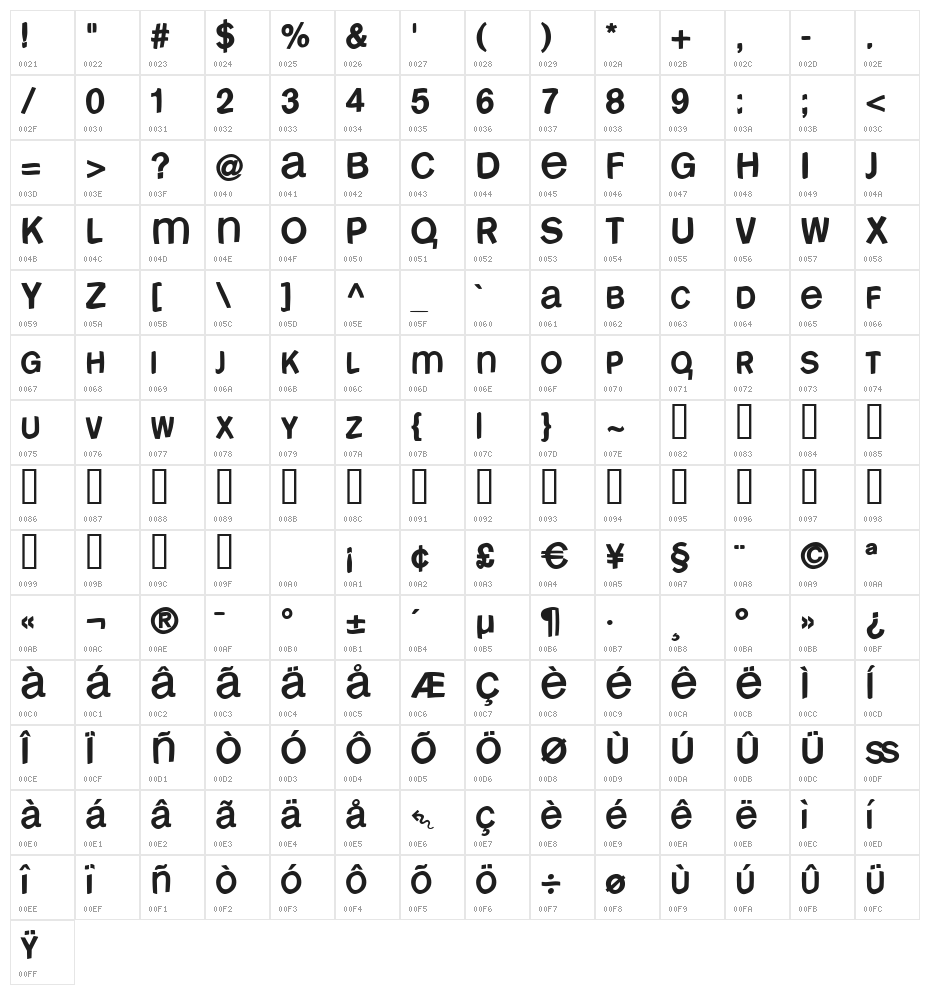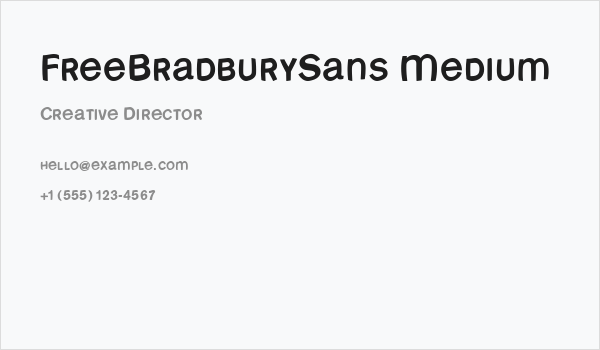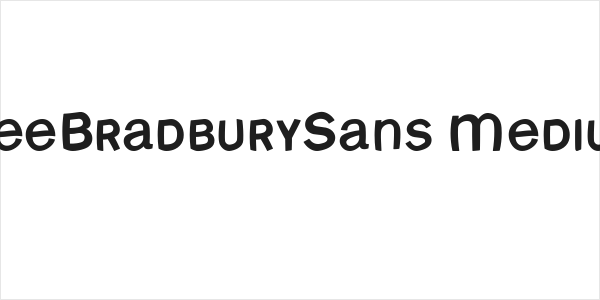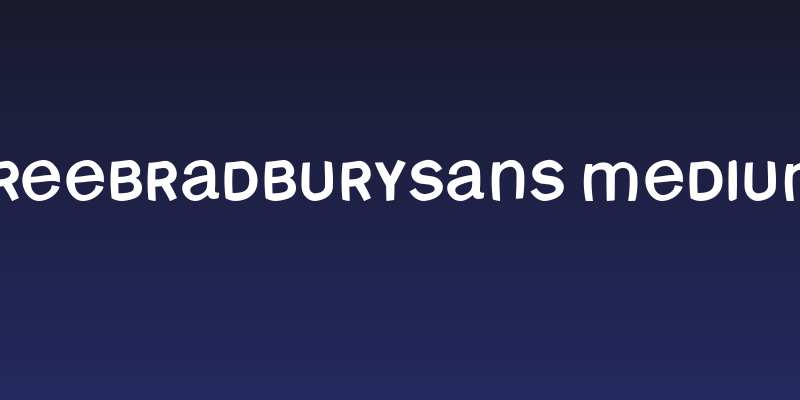
FreeBradburySans Medium Font
FreeBradburySans Medium Description
This font features a playful and bold design with rounded edges and a slightly irregular form, giving it a hand-drawn appearance. The characters are thick and substantial, providing a strong visual impact. The uppercase and lowercase letters maintain a consistent style, with a slight tilt that adds to the whimsical feel. The numerals and special characters follow the same design principles, ensuring uniformity across all glyphs. This font is well-suited for projects that require a fun and approachable aesthetic, such as children's books, posters, or branding for creative businesses.
| Proposed Projects | Ideal for children's books, playful branding, posters, and creative designs. |